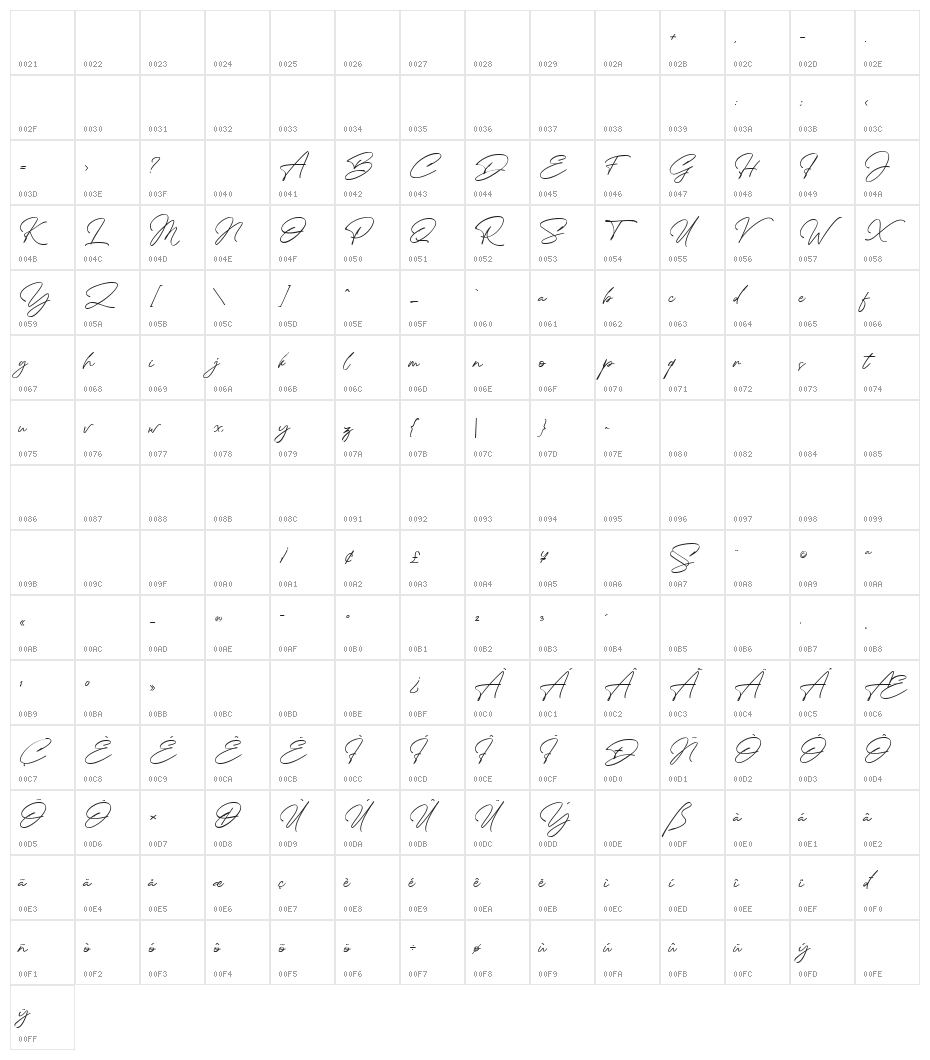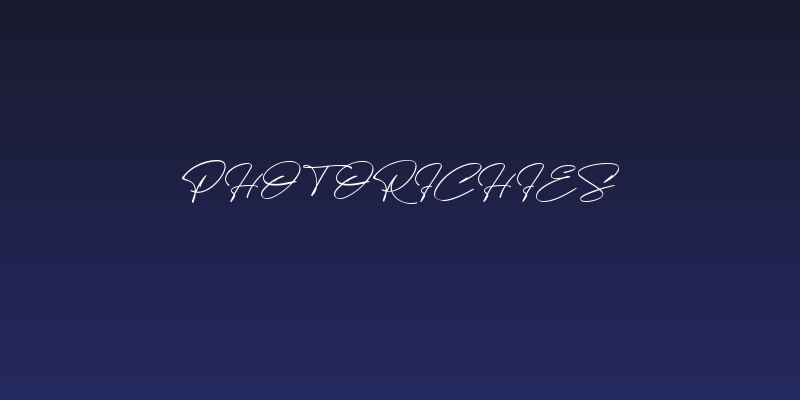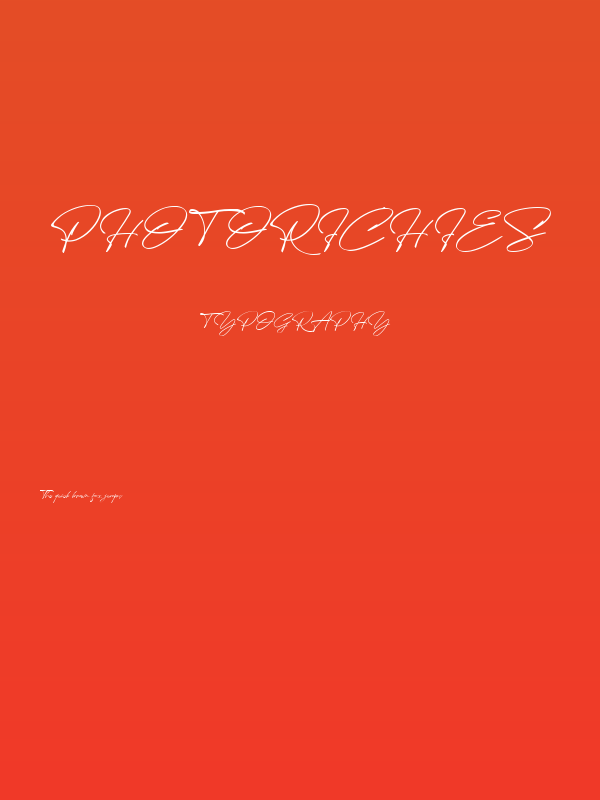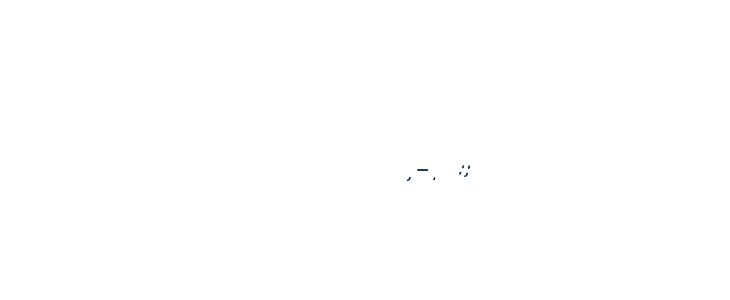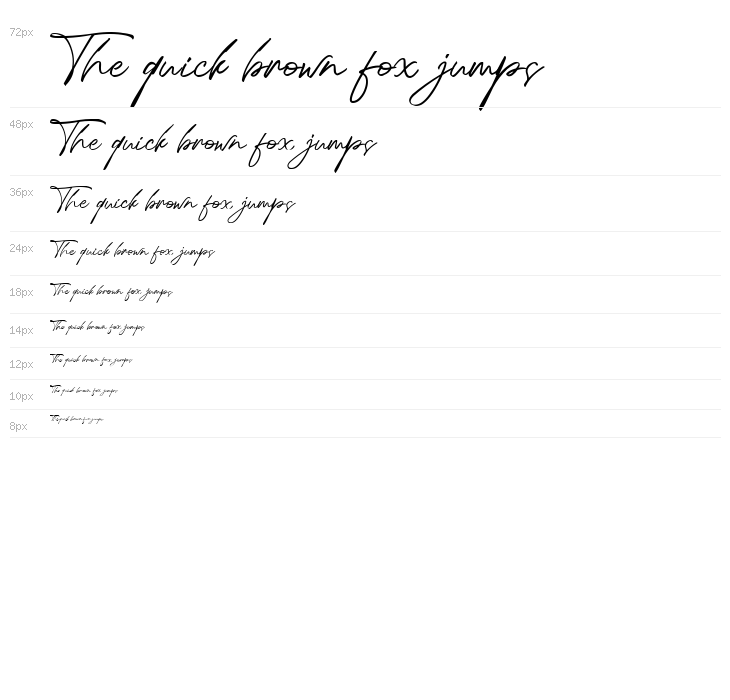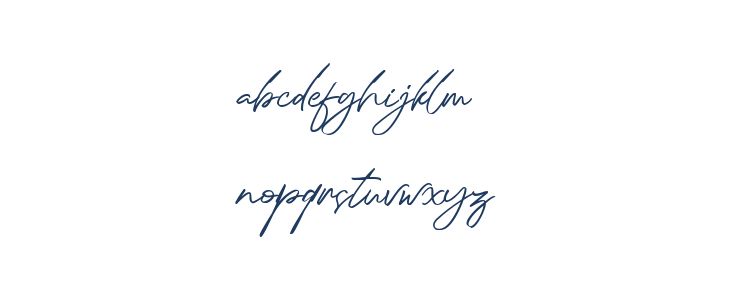
Photorichies Font
Photorichies Description
This font features an elegant and flowing script style, characterized by its smooth, continuous strokes and a handwritten appearance. The uppercase letters are gracefully connected, while the lowercase letters exhibit a more casual, yet sophisticated flair. The overall design is reminiscent of classic calligraphy, with a modern twist that adds a touch of personality and charm. The characters are slightly slanted, enhancing the fluidity and dynamic nature of the font. This typeface is perfect for projects that require a personal and artistic touch, such as invitations, greeting cards, and branding materials.
| Proposed Projects | Ideal for wedding invitations, branding, greeting cards, and artistic projects. |